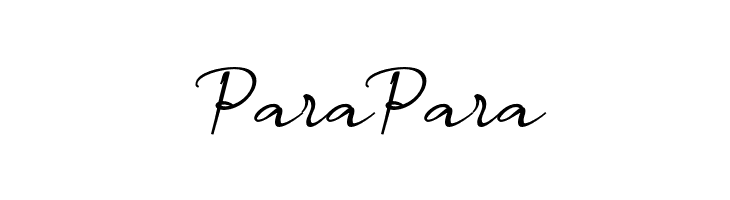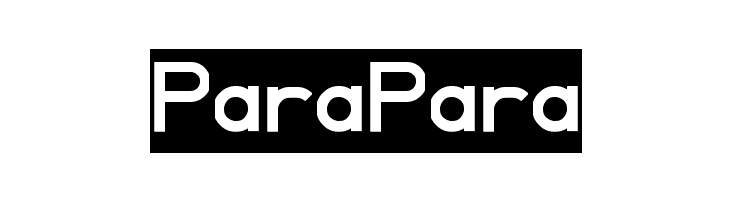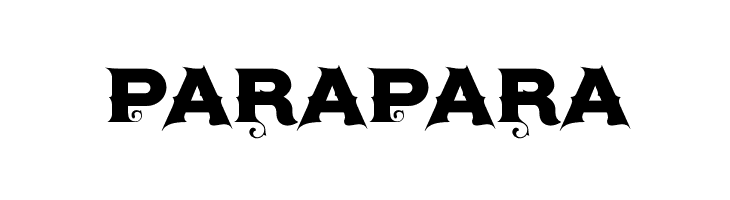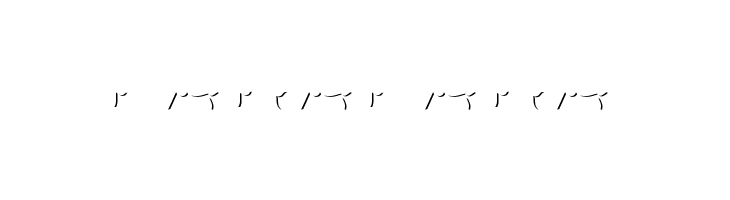
A modern, geometric font with a clean and structured appearance.
A bold, modern geometric font with a clean and angular design.
A modern, italicized font with a sleek and dynamic appearance.
A cursive, handwritten font with elegant, flowing strokes.
A fluid, elegant script font with a handwritten calligraphic style.
A modern, geometric font with clean lines and a bold presence.
A bold, decorative font with intricate swirls and vintage flair.
An abstract, artistic font with thin, fluid strokes and a modern, decorative style.
A decorative font with bold, geometric characters and intricate cut-out details.